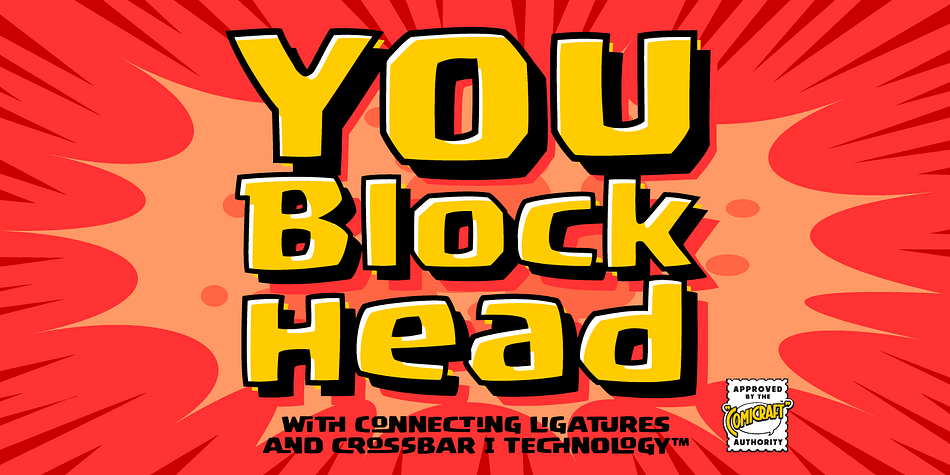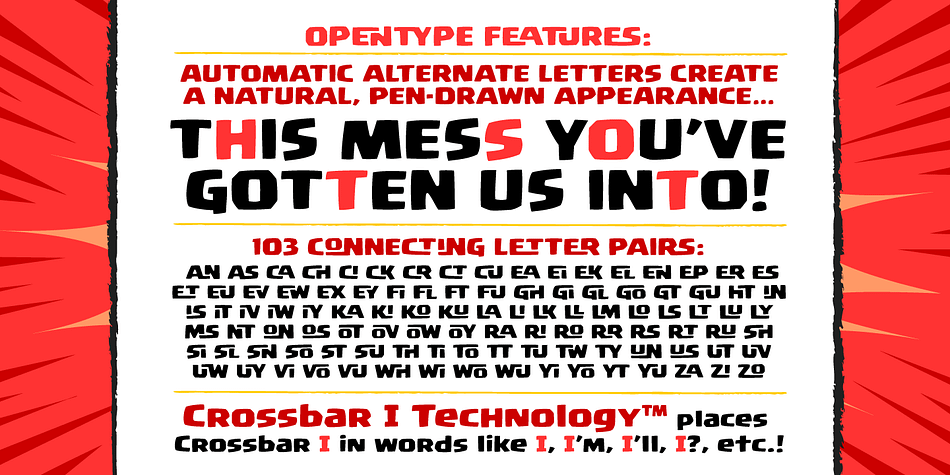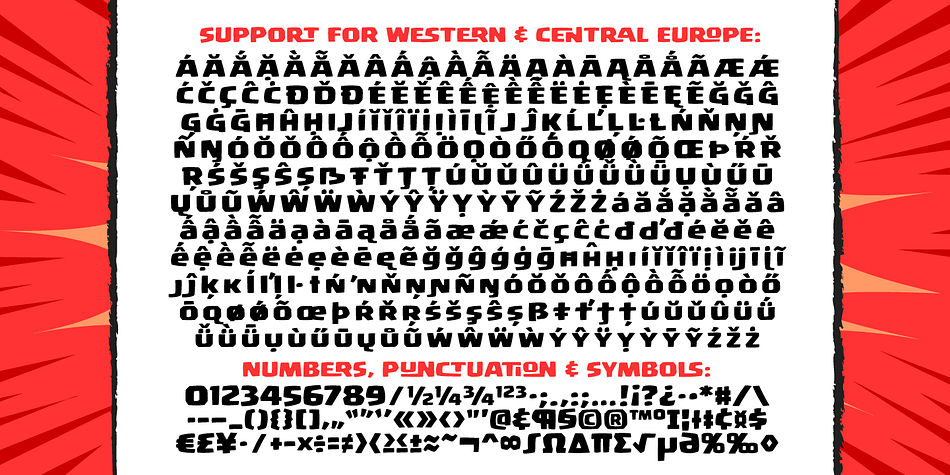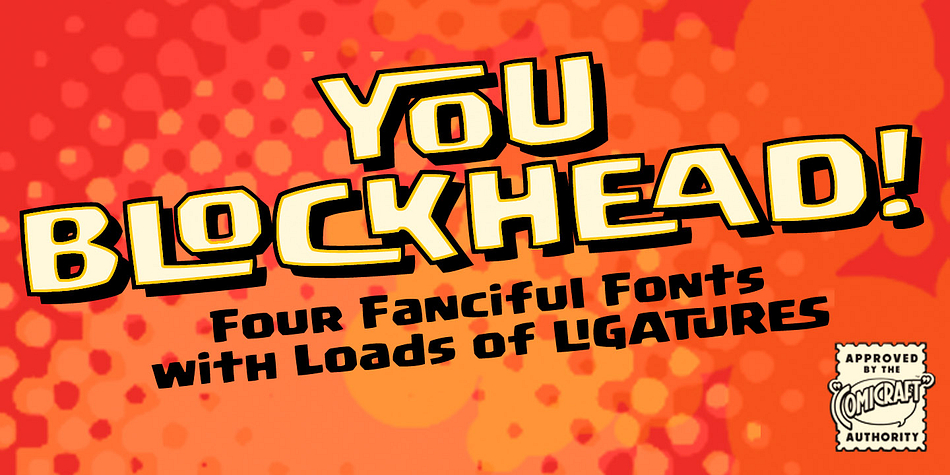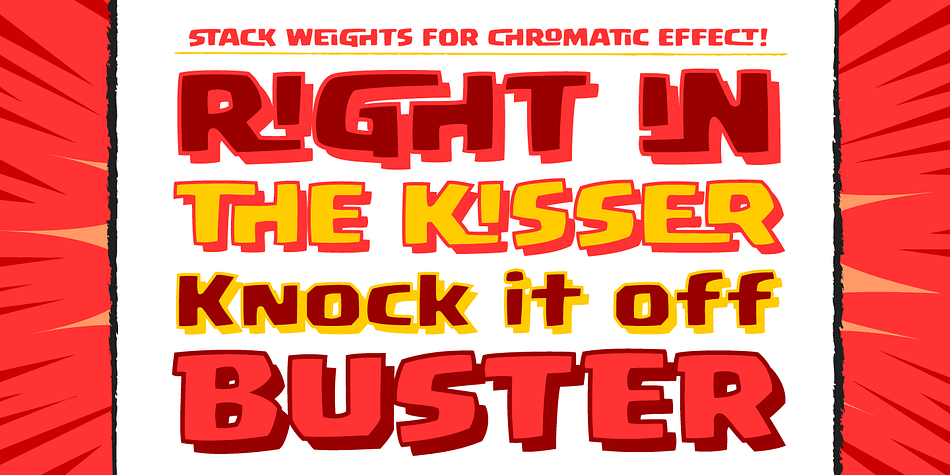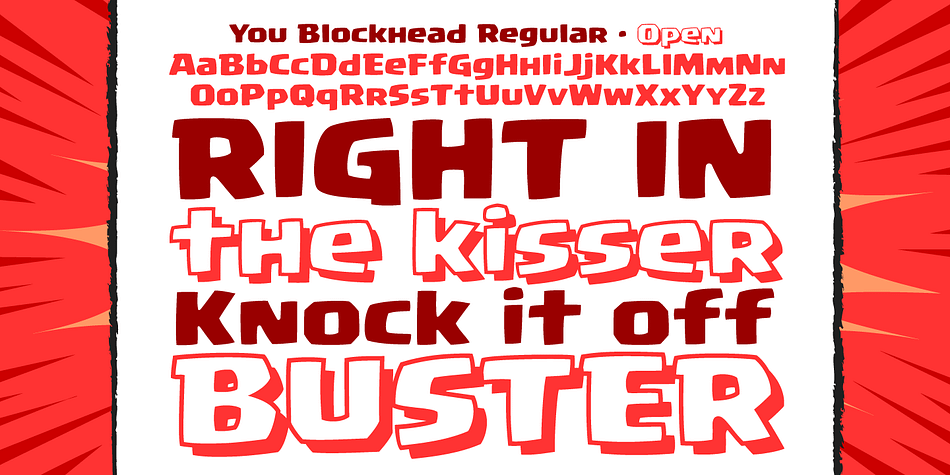
Designed by John Roshell, You Blockhead is a comic font family. This typeface has four styles and was published by Comicraft.
Why you little Numbskull! Nitwit! Visigoth! Dimwitted Jackass! Interplanetary Goat! Highwayman! Sea-gherkin! Jellyfish! KnowNothing! Filibuster! Cachinnating cockatoo! Artichoke! Two-timing Troglodyte! Bald-headed budgerigar! Odd-toed Ungulate! Autocrat! Carpetseller! Duck-billed platypus! Dunderheaded coconut! Ectoplasm! Steamroller! Iconoclast! Kleptomaniac! Raggle taggle ruminant! Orangutang! Rapscallion! Ten thousand thundering typhoons! Whippersnapper! Billions of billious barbecued blue blistering barnacles—you-you… YOU BLOCKHEAD! Now available with a side of Haddock.
Four fonts (Regular, Open, Caps & CapsOpen) with dozens of custom ligatures and Western European international character sets.